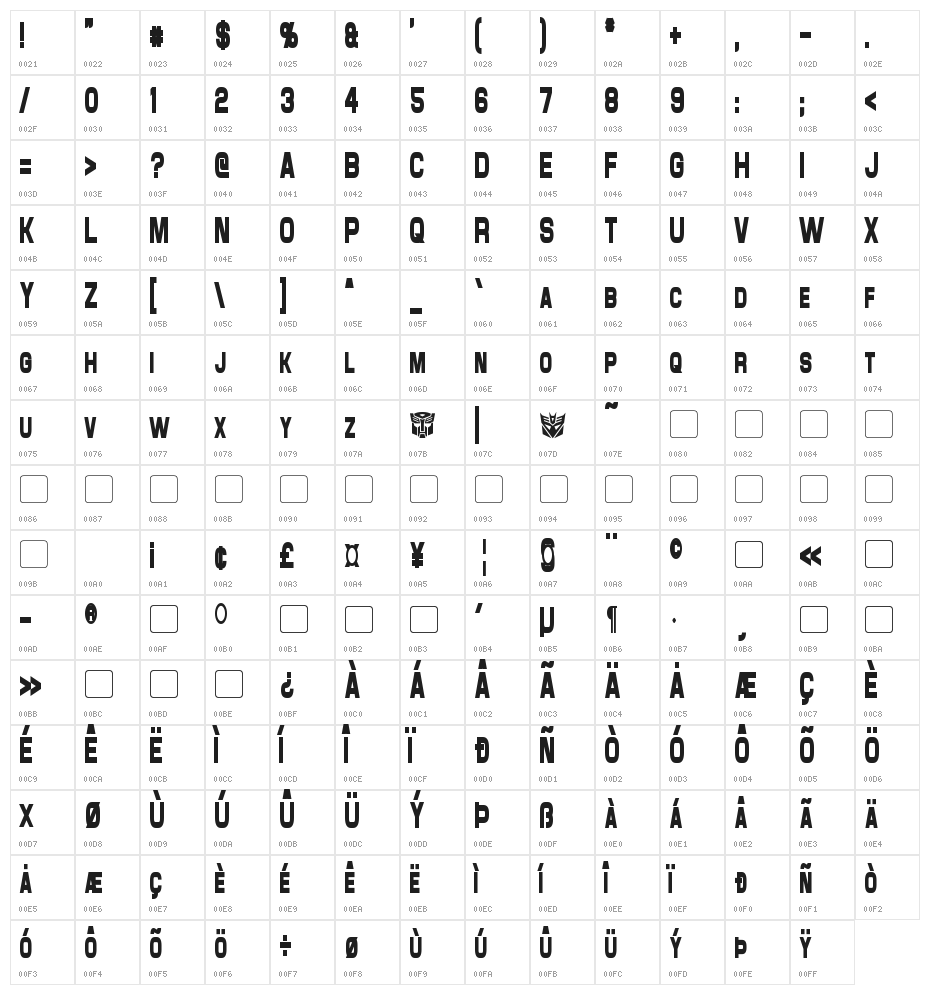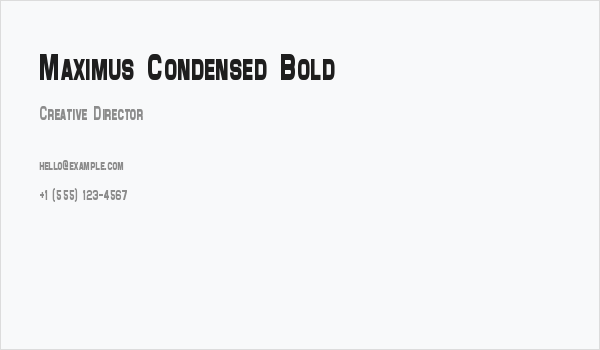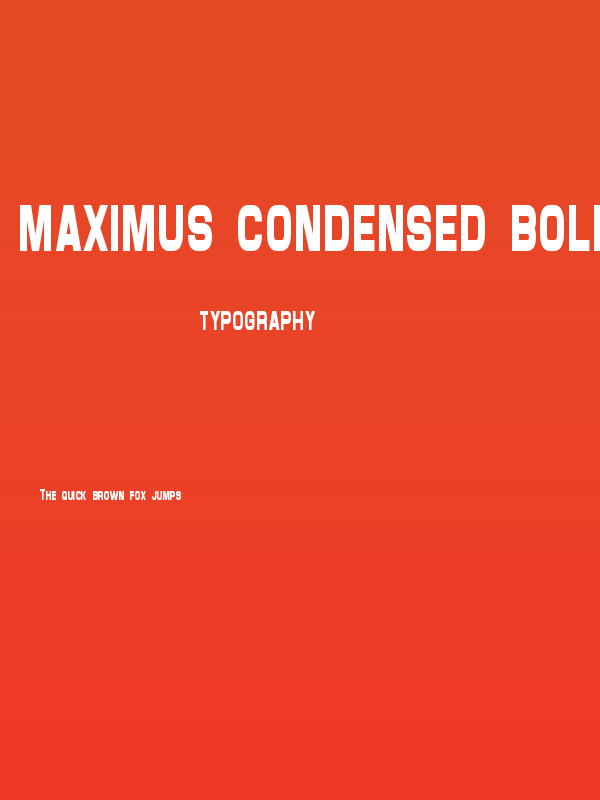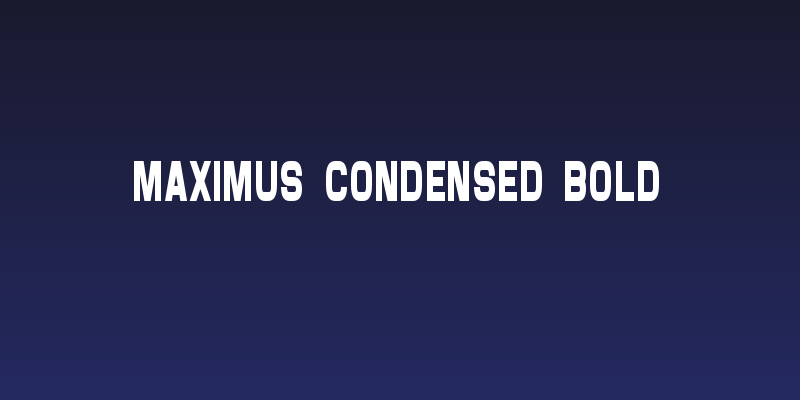
Maximus Condensed Bold Font
Maximus Condensed Bold Description
This font is a bold, condensed typeface that exudes strength and modernity. The characters are tightly spaced, enhancing its compact appearance, while the bold weight gives it a commanding presence. The uppercase letters are particularly striking, with uniform stroke widths that maintain a consistent look across the alphabet. The numbers and special characters follow the same bold and condensed style, ensuring a cohesive appearance throughout. This font's design is ideal for making a strong visual impact, suitable for headlines and attention-grabbing text.
| Proposed Projects | Ideal for headlines, posters, branding, and any project requiring a bold statement. |